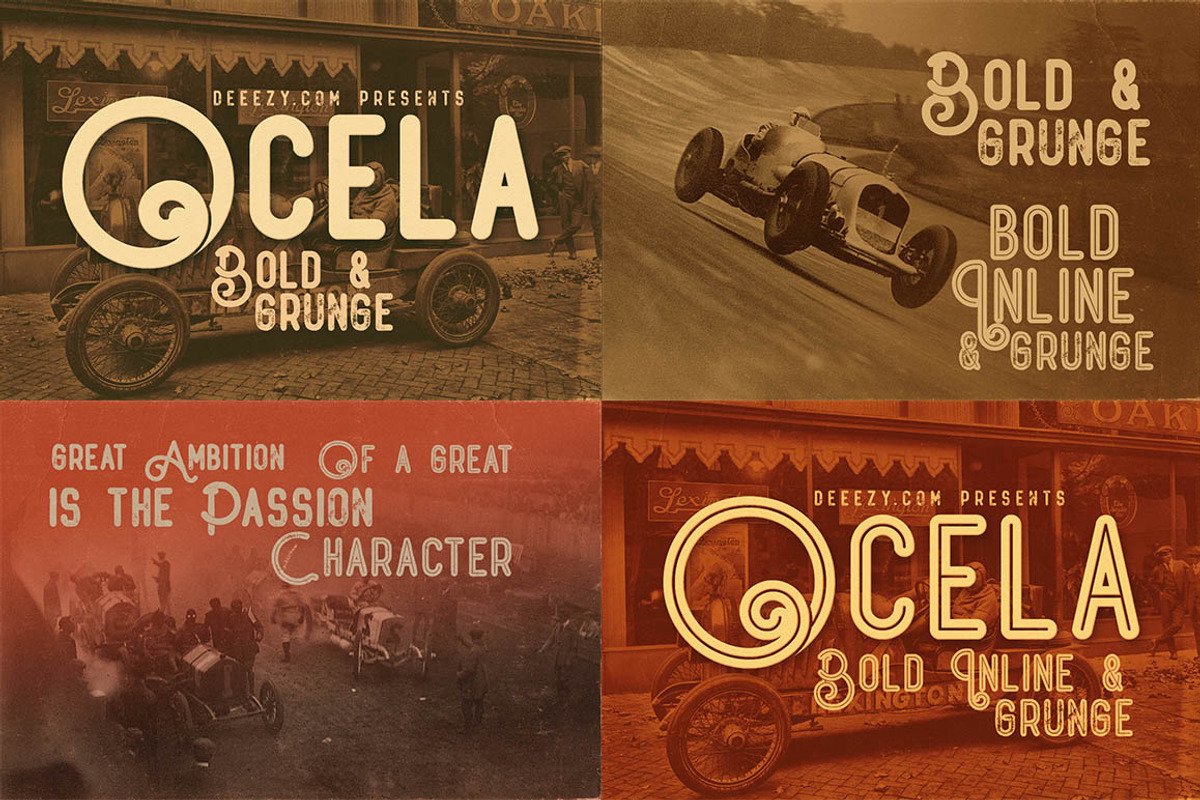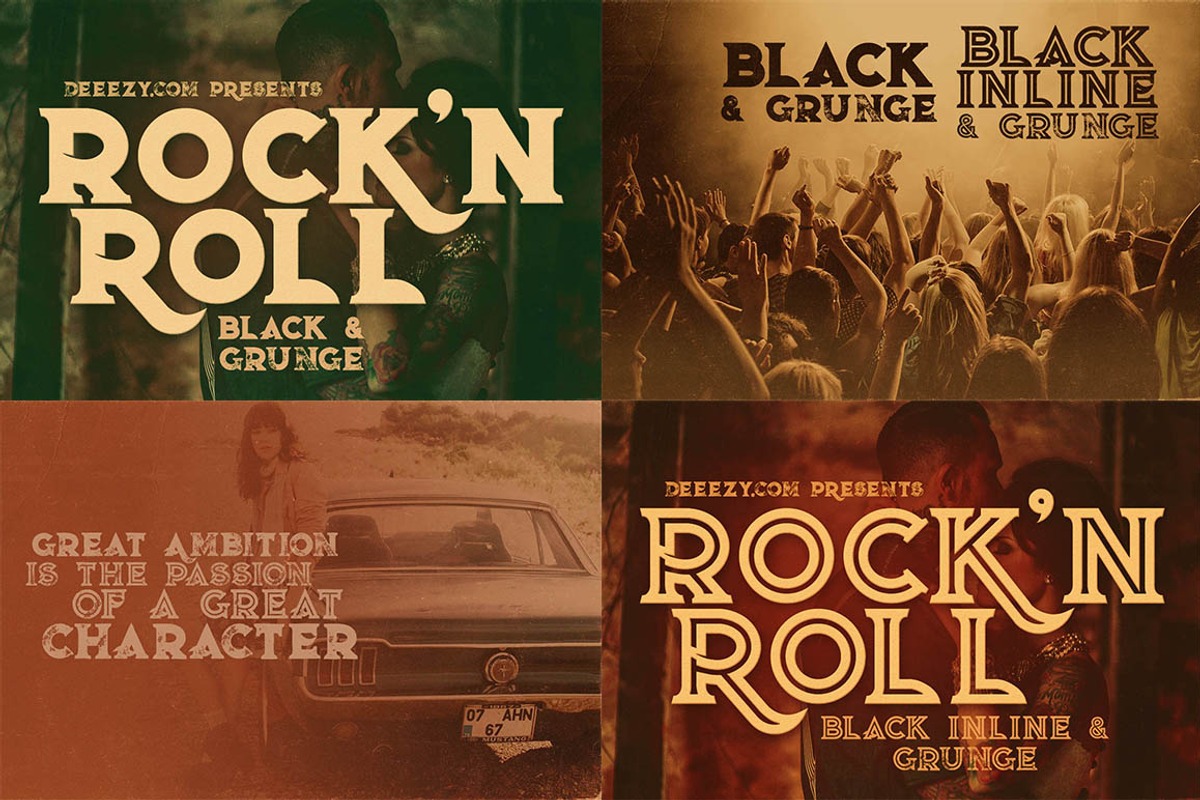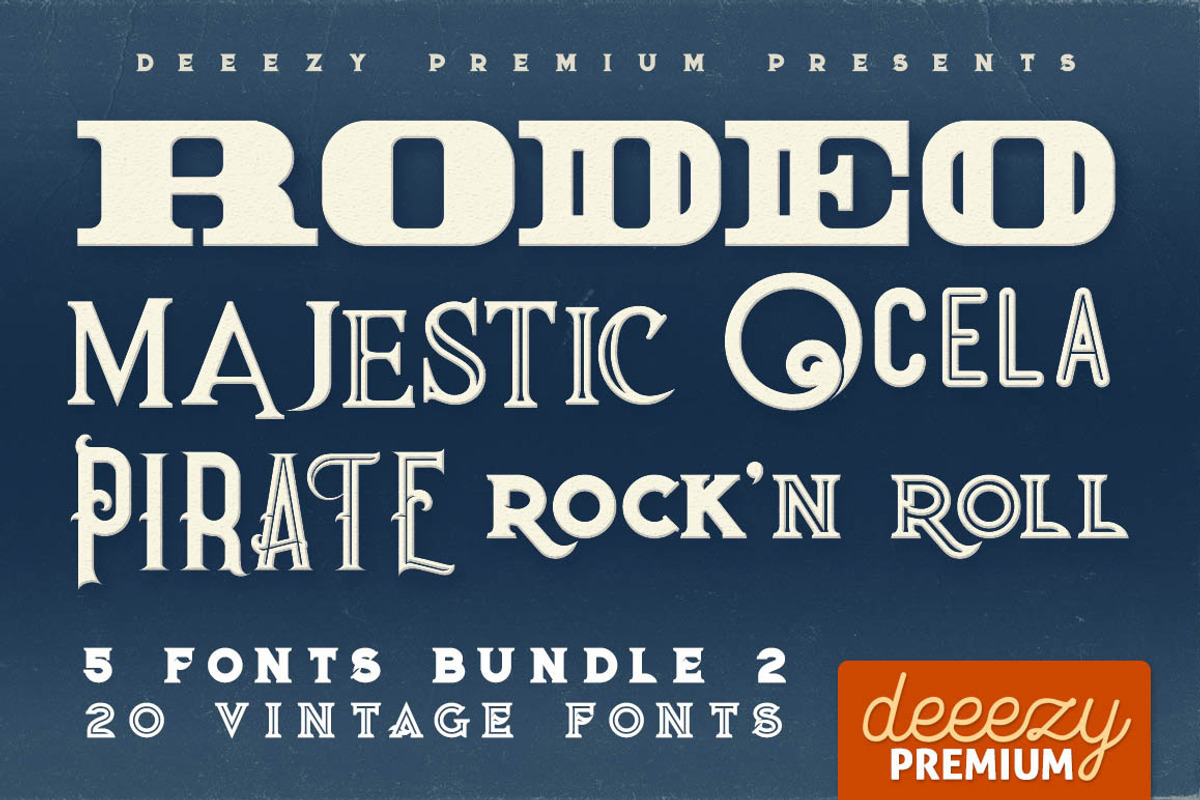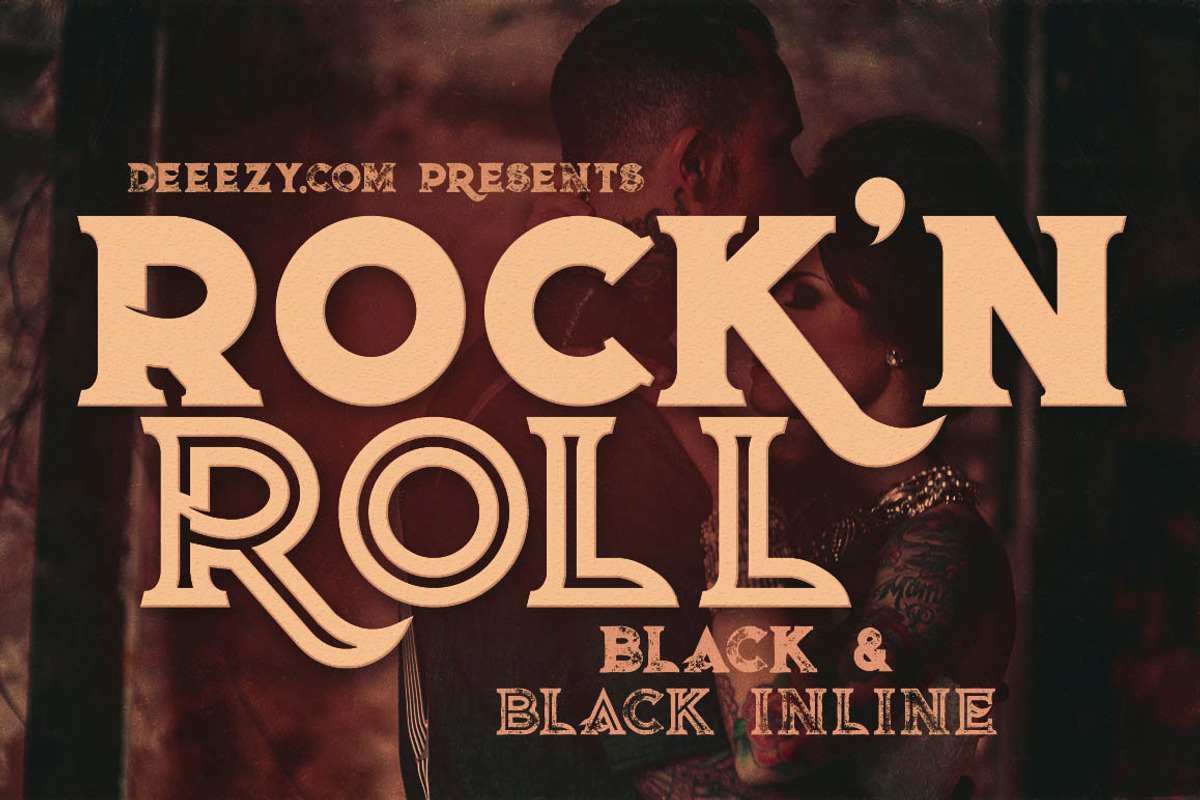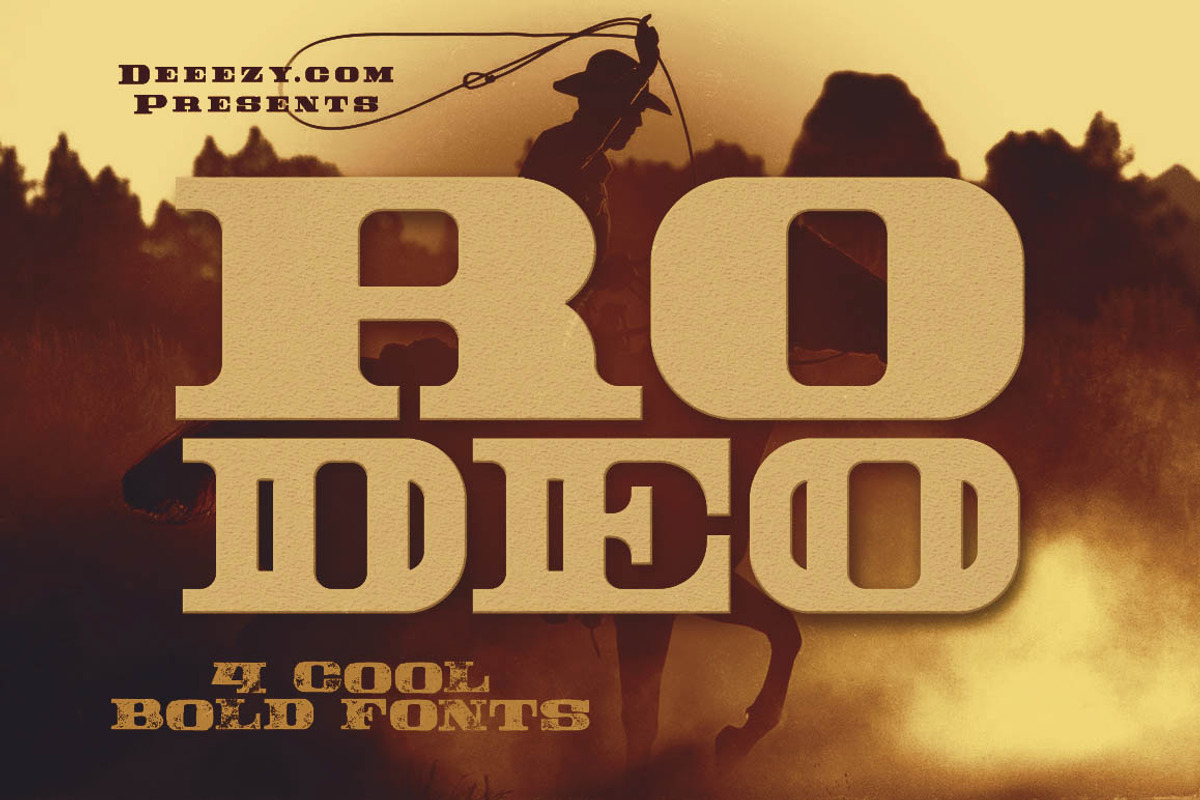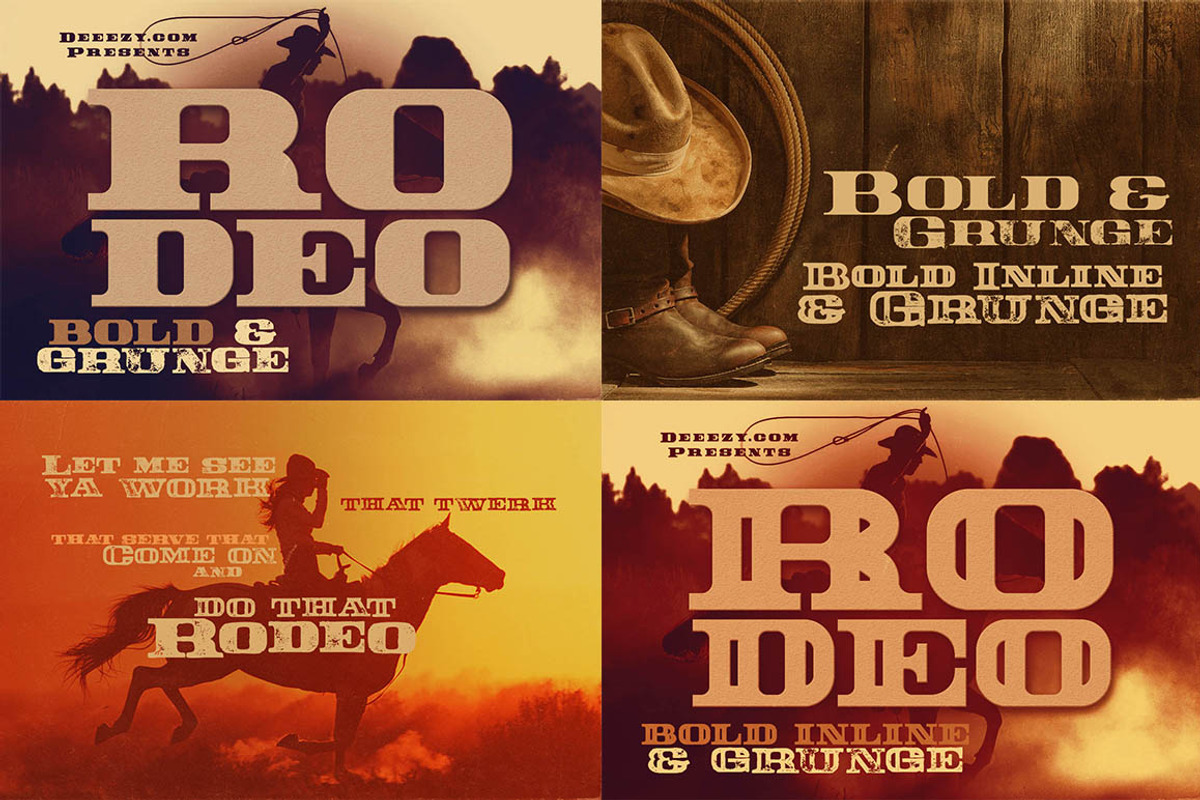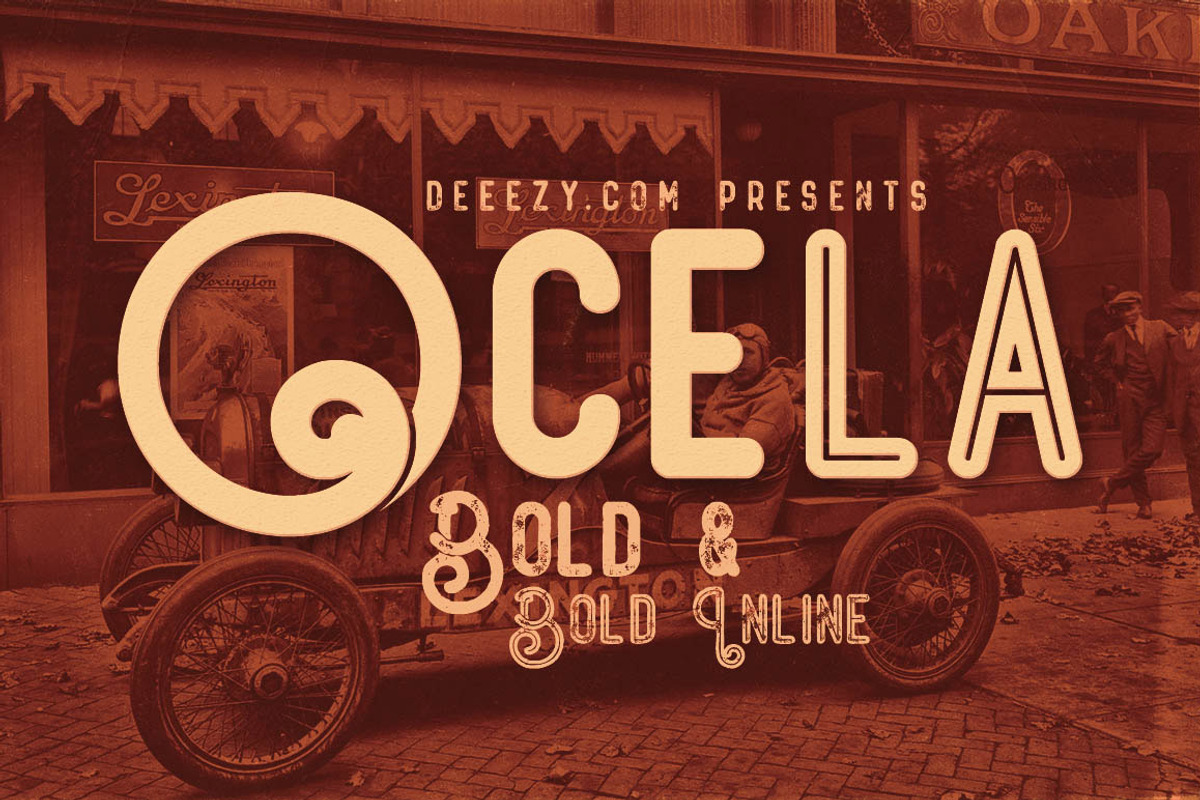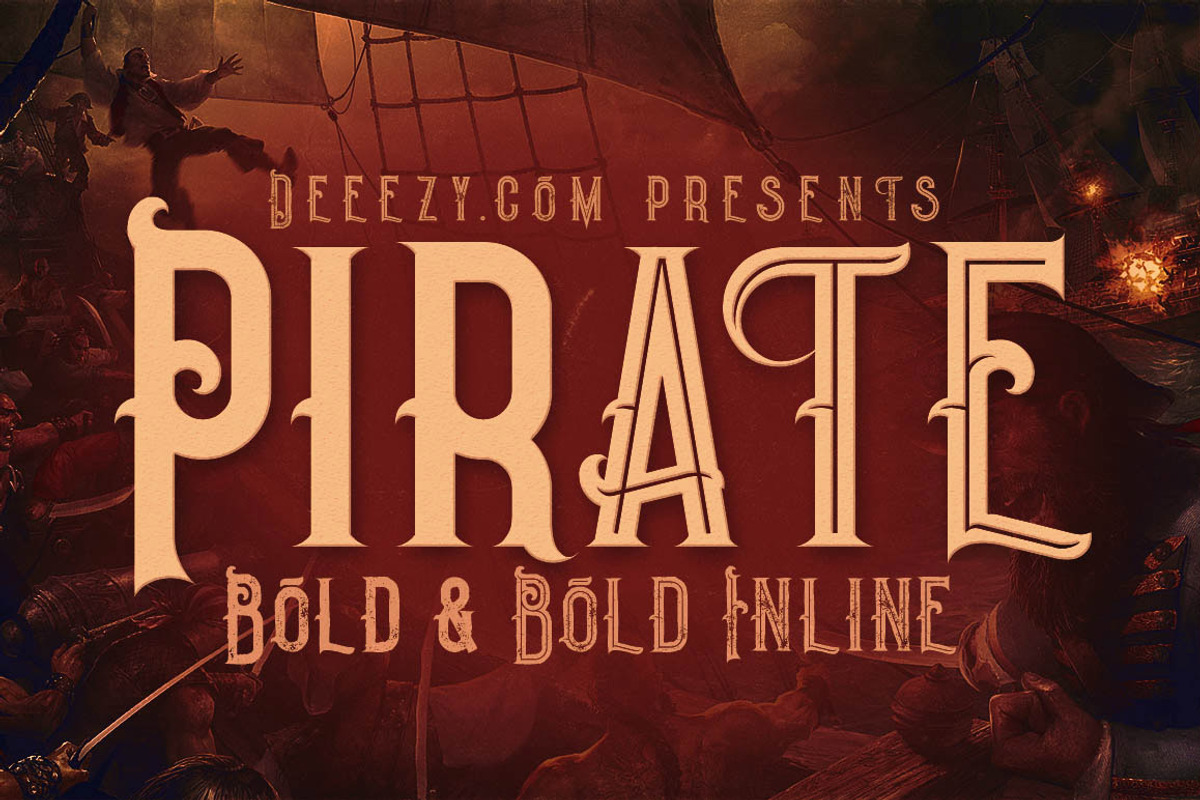
5 Fonts Bundle 2
Extra fonts bundle - you'll find some new versions of 5 popular fonts in this bundle!
Cool retro or vintage style fonts for your new projets. These are mainly display fonts so best for your branding, identity, logo, print, headers, t-shirt and other projects...
5 font families with 20 fonts!